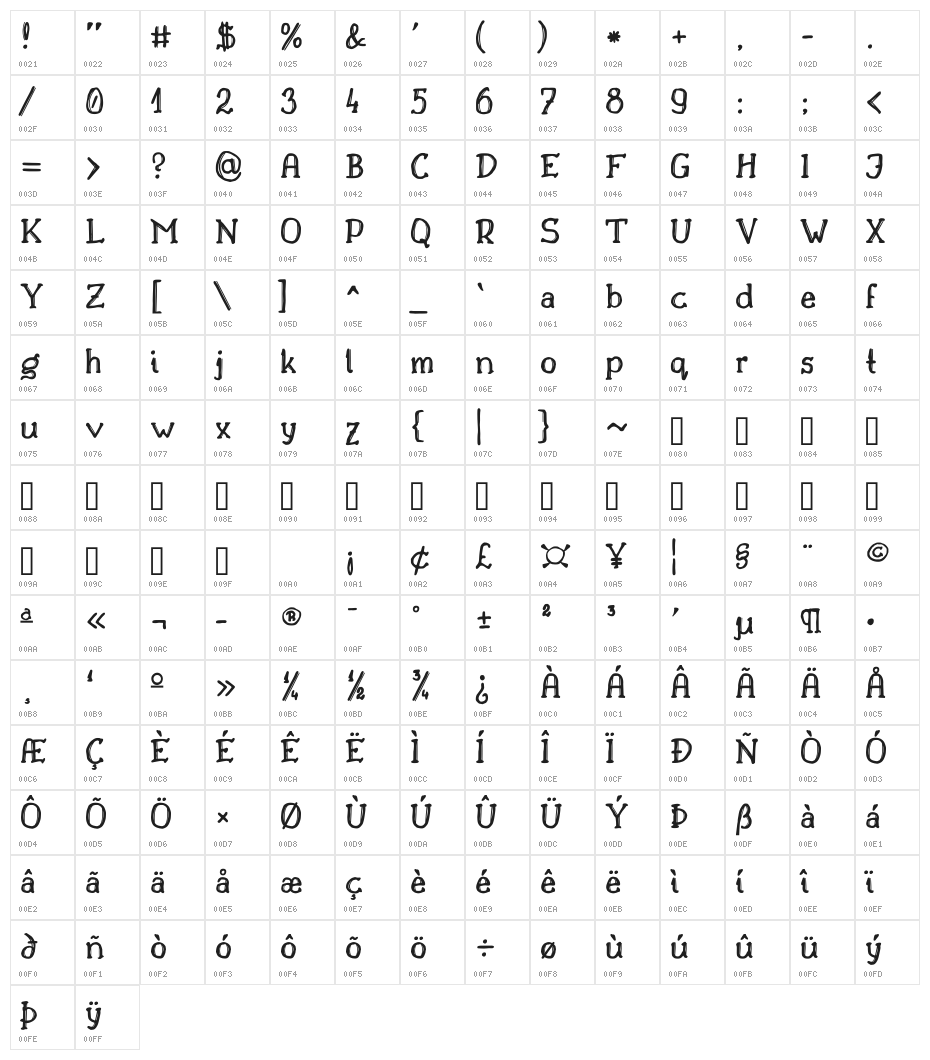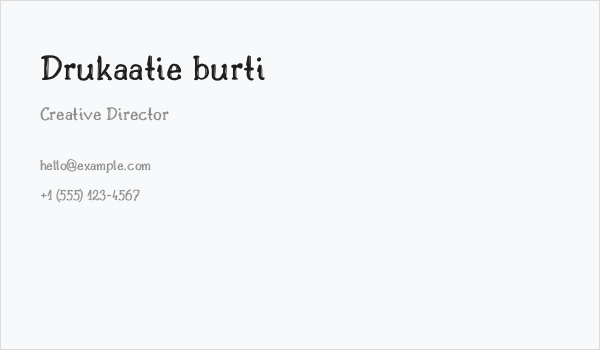
Drukaatie burti Font
Drukaatie burti Description
This font features a playful and whimsical style, characterized by its uneven stroke widths and slightly irregular letterforms. The uppercase letters are bold and prominent, while the lowercase letters maintain a consistent flow with a touch of quirkiness. The numerals are distinct and easy to read, with a slight slant that adds to the font's unique personality. Special characters are creatively designed, enhancing the overall artistic feel. This font exudes a hand-drawn aesthetic, making it ideal for projects that require a personal and informal touch.
| Proposed Projects | Ideal for children's books, creative posters, greeting cards, and playful branding. |